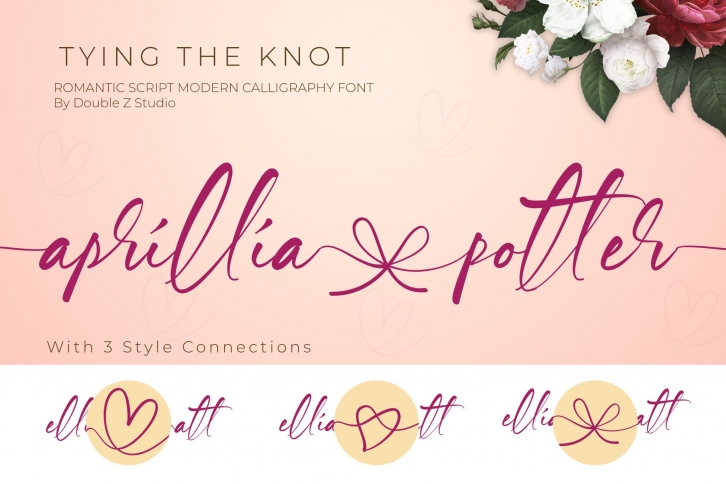
Aprillia Potter Romantic Script is a trendy and unique font with an authentic style. It was designed by Double Z Studio and it's a great choice for creative people who need such a font. It was released on February 11, 2022 and the file size is 11.44 MB. Aprillia Potter Romantic Script will add an organic vibe to any design idea!